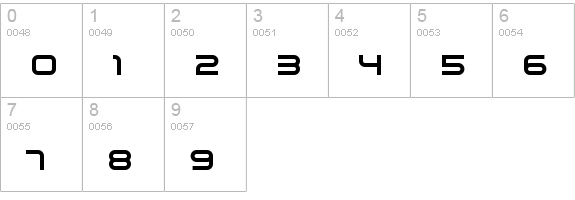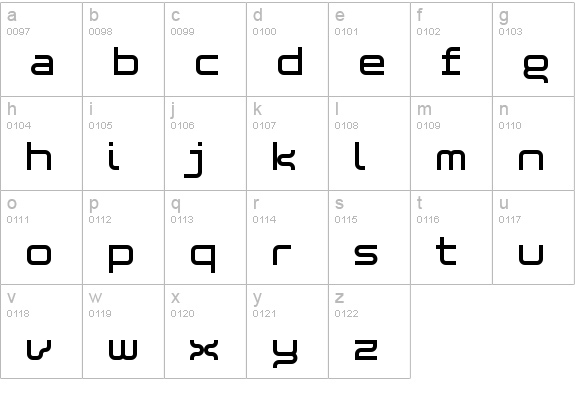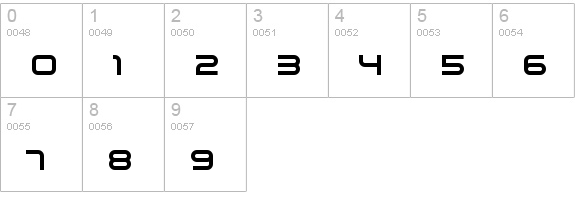
Blessed Font Details
Blessed font is a beautifully crafted typeface that exudes elegance and sophistication. Its sleek lines and graceful curves make it perfect for a wide range of design projects, from wedding invitations to branding materials. The Blessed font is versatile and timeless, adding a touch of class to any project it is used in. The best part about Blessed font is that it is completely free to download at FontsMarket.com. This means that you can add this stunning font to your collection without any cost, making it an invaluable resource for designers and creatives alike. Don't miss out on the opportunity to enhance your designs with the exquisite beauty of Blessed font – download it for free today at FontsMarket.com!